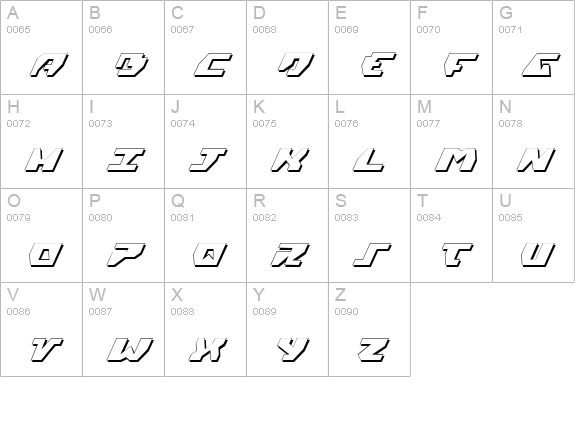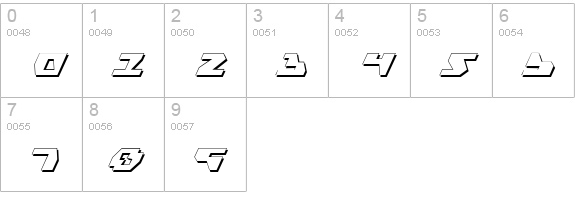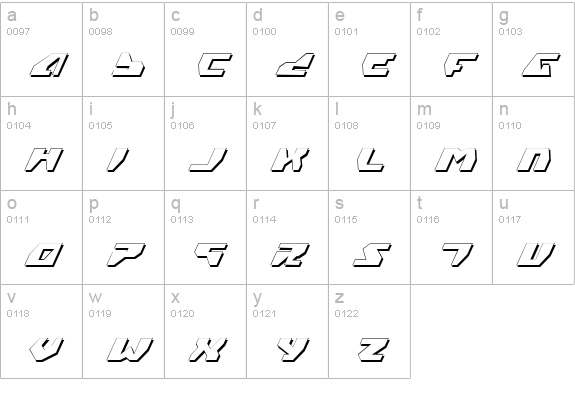
Gyrfalcon 3D Italic is a distinctive, italic variant in the Gyrfalcon typeface family \xE2\x80\x94 well suited to design and typography projects.
Gyrfalcon 3D Italic font is a stunning and dynamic typeface that exudes elegance and sophistication. Its sleek and modern design is perfect for adding a touch of luxury to any project. The 3D effect gives the font a sense of depth and dimension, making it truly stand out. What makes Gyrfalcon 3D Italic font even more appealing is that it is available for free download at FontsMarket.com. This means that you can easily access this beautiful font and use it in your designs without any cost. Whether you are working on a branding project, a website design, or any other creative endeavor, Gyrfalcon 3D Italic font is sure to elevate your work to the next level. Download it today and see the difference it can make in your designs!